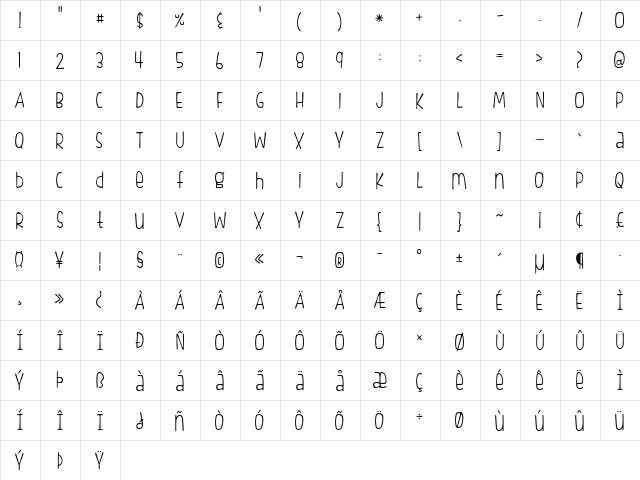
FISHfingers Light
| Foundry | Brittney Murphy |
| Designer | Brittney Murphy |
Design Context for FISHfingers Typeface
FISHfingers is a composed and adaptable typeface that performs quietly and consistently across a wide range of design contexts. The delicate stroke weight brings airiness and refinement to layouts.